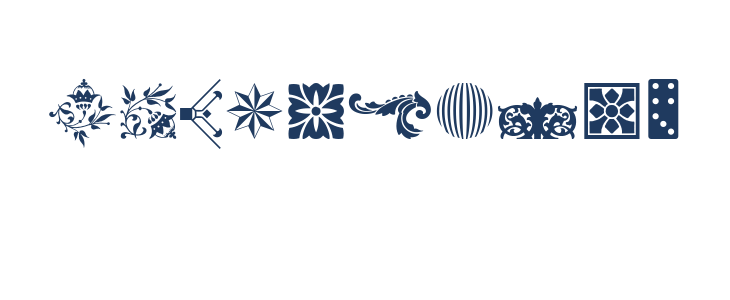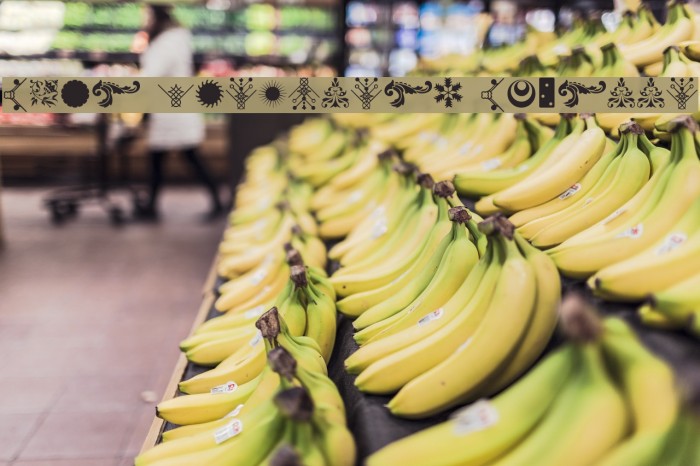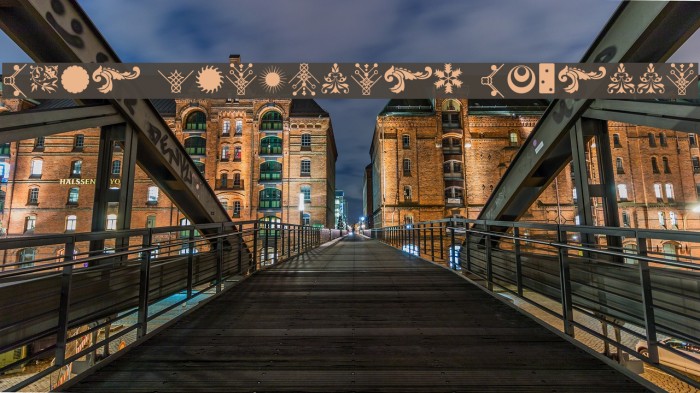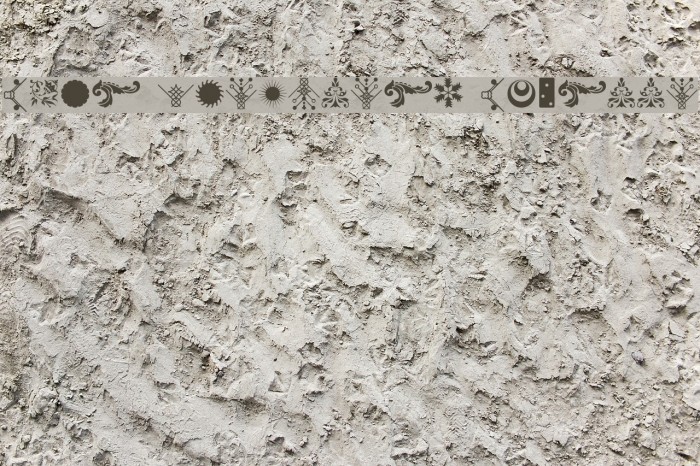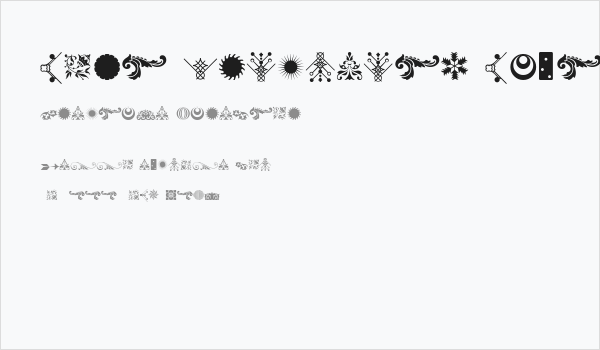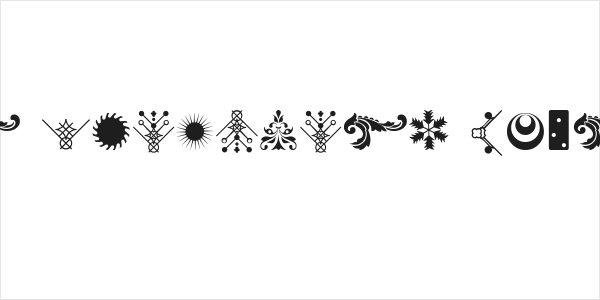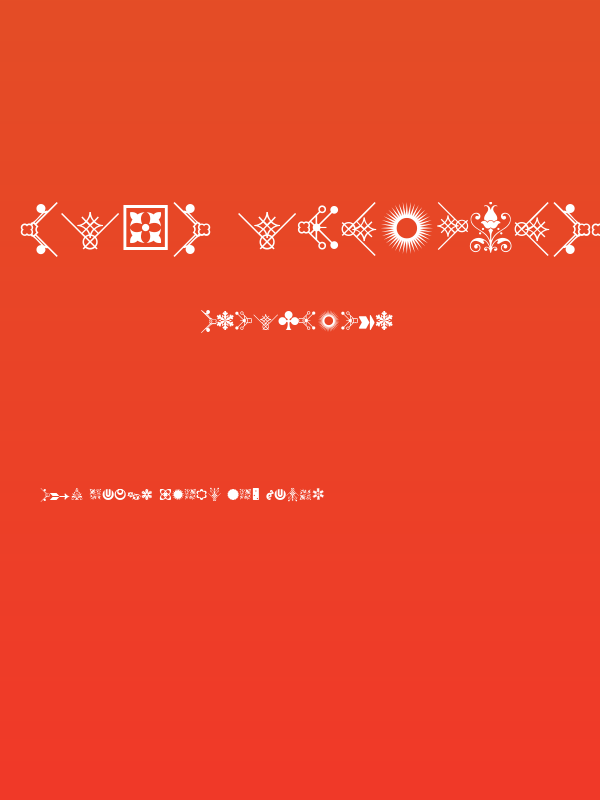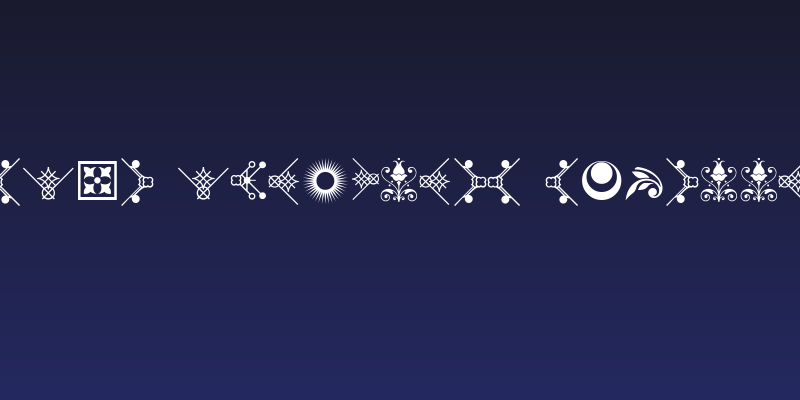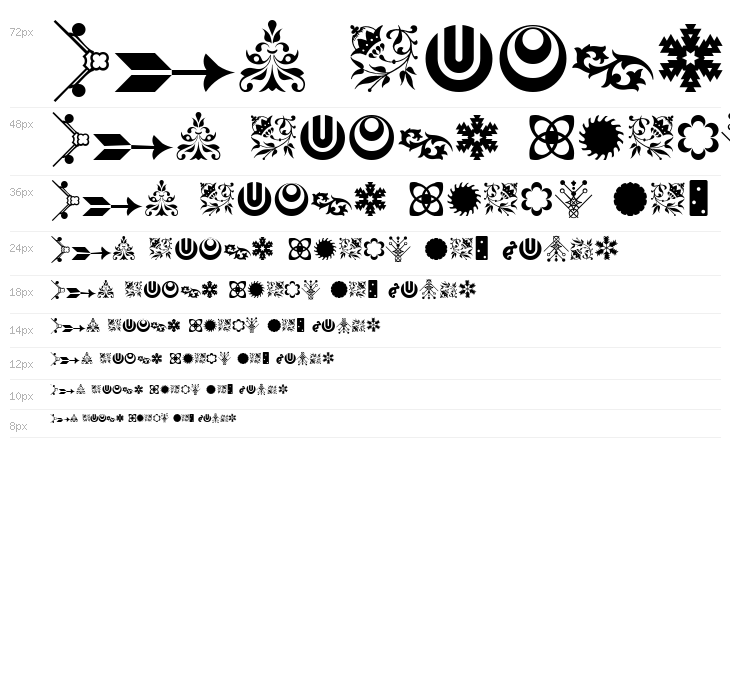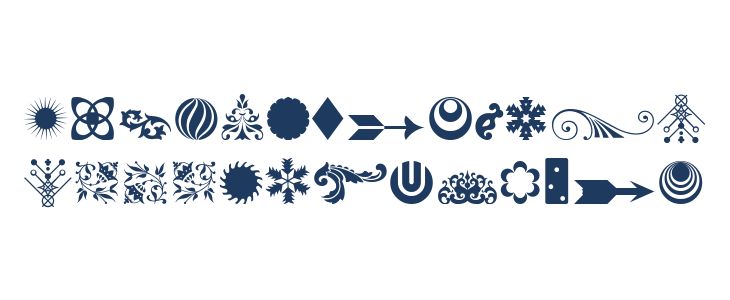
Soft Ornaments Sixteen Font
Soft Ornaments Sixteen Description
A decorative dingbat set featuring a variety of ornate, floral, geometric, and abstract ornamental symbols. The glyphs are bold, highly detailed, and range from symmetrical flourishes to playful shapes, suitable for embellishing designs.
| Overall Style | Decorative, Ornamental, Vintage |
| Use Case | Borders, Dividers, Decorative elements |
| Proposed Projects | Invitations, certificates, borders, dividers, scrapbooking, decorative accents in print or digital design. |